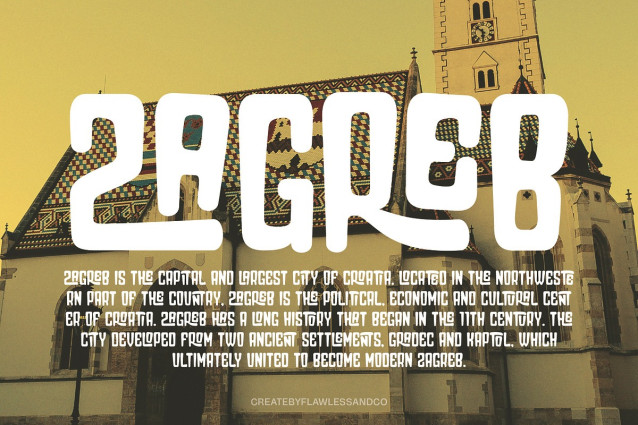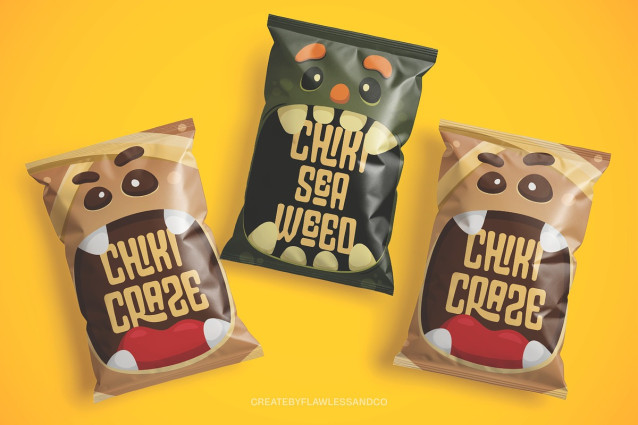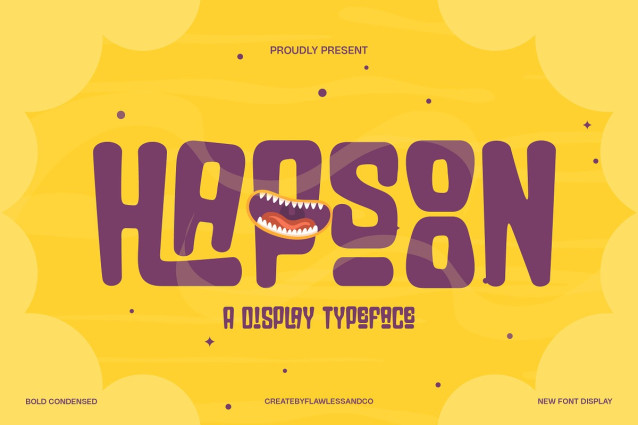
Hapsoon Display Font
Hapsoon Display Font is a bold display typeface that fuses strong personality with modern flair. With its striking forms, dynamic proportions, and confident presence, Hapsoon is crafted to make your design projects loud, clear, and unforgettable. Perfect for branding, logos, posters, packaging, and impactful headlines, Hapsoon brings bold character and visual energy to every composition. Each letter is carefully shaped to deliver maximum presence while maintaining excellent legibility—making your message stand out with authority and style. Hapsoon includes creative alternates and ligatures to offer extra flexibility and uniqueness in your typographic expression—ideal for brands that want to speak loud, proud, and different.